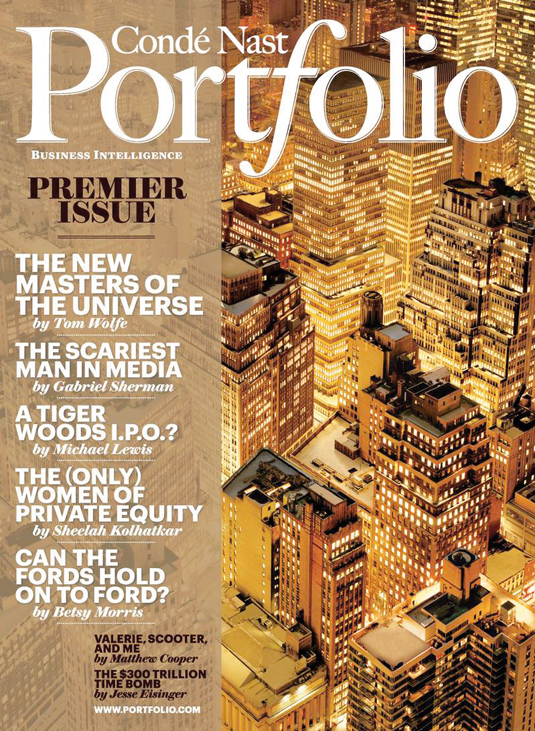
Greatest fonts countdown: 77 - Graphik
We're counting down the 100 greatest typefaces in existence - here's the font at number 77.
FontShop AG, the renowned type foundry, conducted a survey based on historical relevance, sales at FontShop.com, and aesthetic quality. With a few additions from the experts at Creative Bloq and Computer Arts magazine, the best fonts ever were selected for the new book, 100 Best Typefaces Ever.
But without further ado, here is the 77th best typeface…
77. Graphik
- Christian Schwartz, 2009
Graphik is a typeface that was first drawn for the identity of Commercial Type co-founder Christian Schwartz’s company, Schwartzco Inc. The family was then finished for Condé Nast Portfolio and expanded for Wallpaper* magazine and T, the New York Times Style Magazine. According to Schwartz, Graphik was a result of inspiration from all parts of the 20th century.
The heavy end of the family is based, in part at least, on Paul Renner’s Plak (a relatively obscure display typeface cut only in large sizes of woodtype, that is related to his heavier weights of Futura but has rounder, friendlier, fatter proportions). "For the lighter weights," says Schwartz, "I was more influenced by the less popular sans-serifs that many European foundries released to compete with Futura, Helvetica and Univers – the juggernauts of 20th century sans-serifs – such as Neuzeit Grotesk, Folio, Recta, and Maxima."